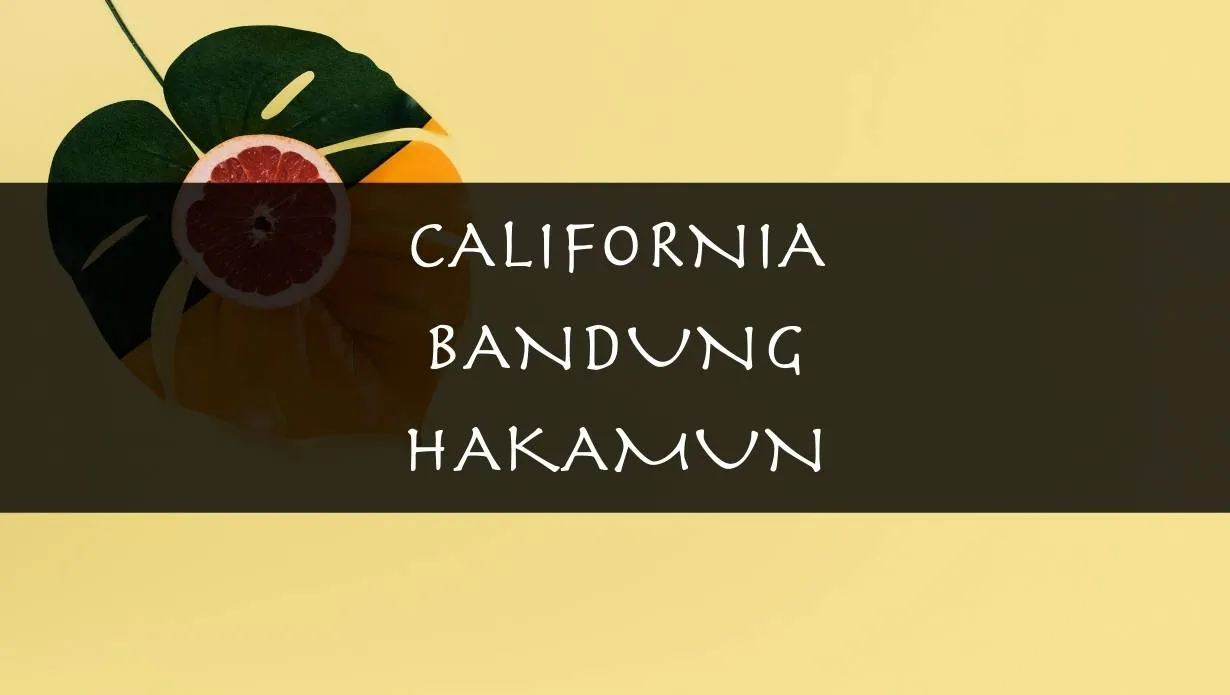
Herculanum Font is a popular typeface that is often used for headlines and other display purposes. It is named after the city of Herculaneum, which was buried by the eruption of Mount Vesuvius in 79 AD. The font is characterized by its strong, angular shapes and sharp edges. This Font is available in both regular and bold weights.
Due to its bold style, it can be difficult to read large amounts of text set in this Font. However, it can be an effective way to add impact to headlines and other short blocks of text. When used sparingly, it can help add visual interest to a design.
If you’re looking for a strong, eye-catching typeface for headlines and other display purposes, This Font is a great option to consider. You check out the Tw Font for pairing.
This Font is best used for headlines, logos, and other short blocks of text. It’s not ideal for body copy or other long passages of text since it can be difficult to read. When used sparingly, it can add visual interest to a design.
If you want to use this Font in your next project, be sure to keep its unique characteristics in mind. Its strong shapes and sharp edges can help add impact to your headlines and other short blocks of text.
This stylish texture is manufactured by Mount Vesuvius. This is a very famous designer that is also famous for creating many fancy and unique typefaces. While designing this font the font maker team focuses on the texture of this font.
- Herculanum Pro Roman
- Herculanum Pro Bold
- Herculanum Pro Outline
- Herculanum Std Roman
What is herculanum font?
This Font is a popular typeface that is often used for headlines and other display purposes.
Is Herculanum a fancy font?
Yes, This Font is a fancy font. It is named after the city of Herculaneum, which was buried by the eruption of Mount Vesuvius in 79 AD.